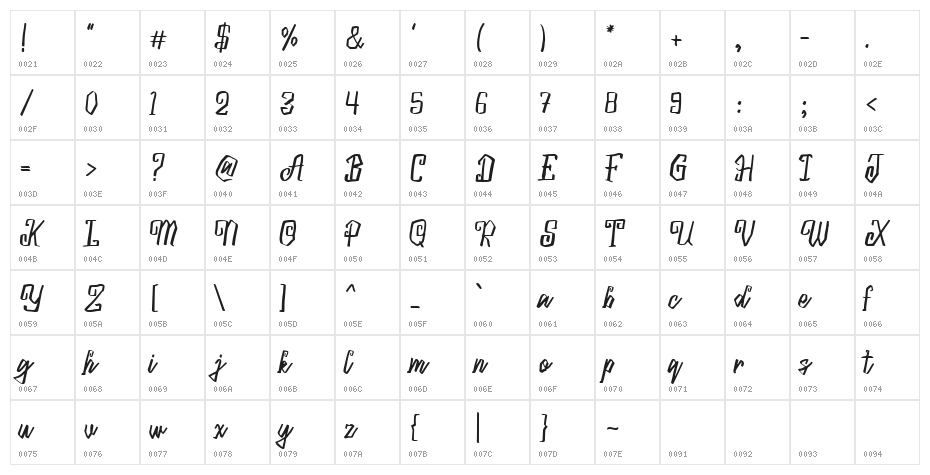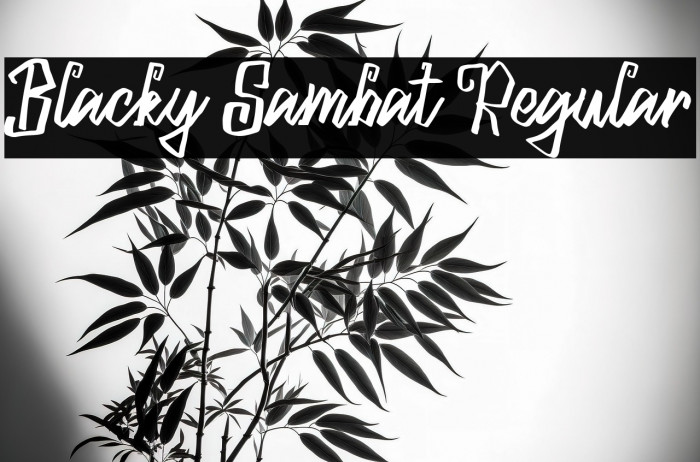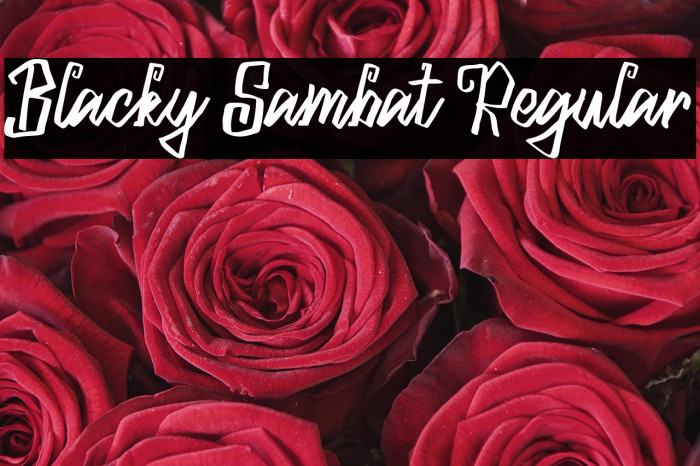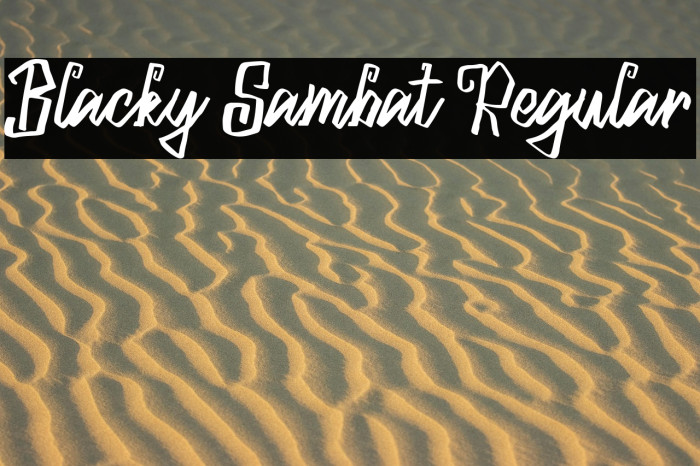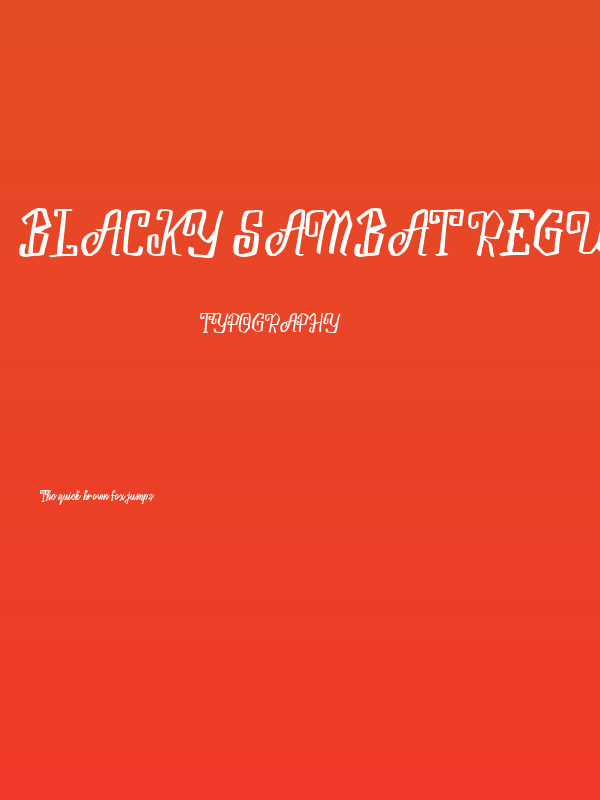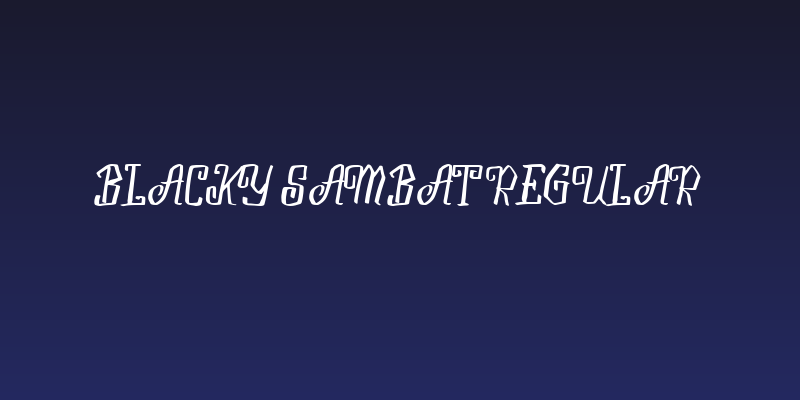
Blacky Sambat Regular Font
Blacky Sambat Regular Description
This font features a bold and dynamic script style with a modern twist. The uppercase letters are characterized by their unique, flowing lines and slightly angular edges, giving them a distinct and artistic appearance. The lowercase letters maintain a similar style, with smooth curves and a handwritten feel that adds a personal touch. The numerals are consistent with the overall design, featuring bold strokes and a slightly condensed form. Special characters are creatively integrated, maintaining the font's cohesive style. This font is versatile, suitable for projects that require a touch of elegance and creativity.